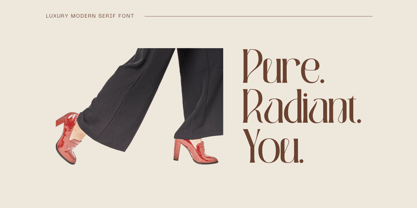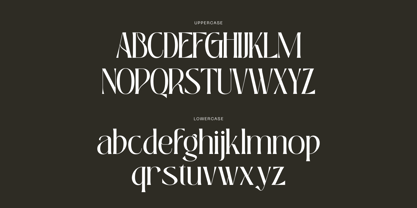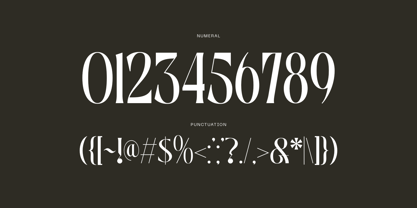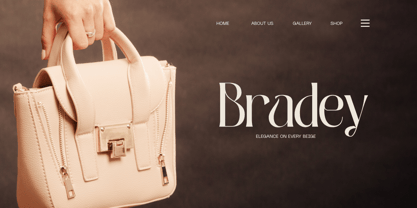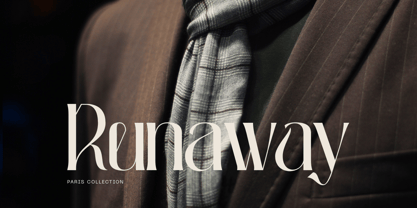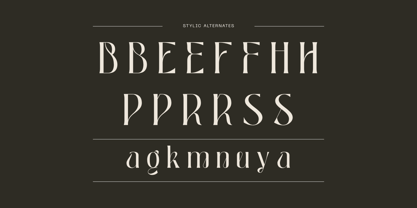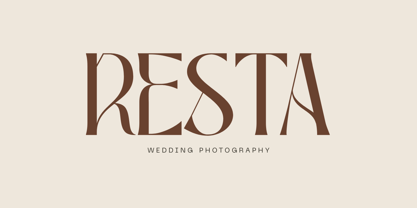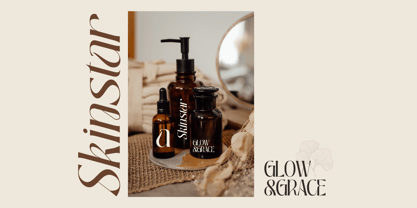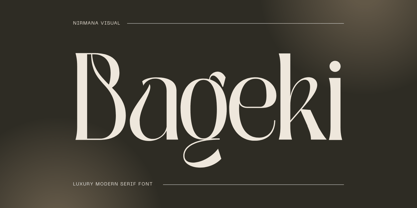
Bageki Luxury
The Bageki Luxury Font Family was designed by Sigit Dwipa and published by Nirmana Visual. Bageki Luxury contains 2 styles and family package options. More about this family
Bageki Luxury is a sophisticated serif font designed for premium branding and elegant logos. Featuring both Regular and Italic styles, Bageki Luxury blends timeless charm with modern refinement. Its sleek curves and balanced proportions create a high-end, professional look that enhances brand identity. Perfect for luxury fashion, beauty products, and upscale businesses, this font brings an exclusive and refined character to your visual branding.